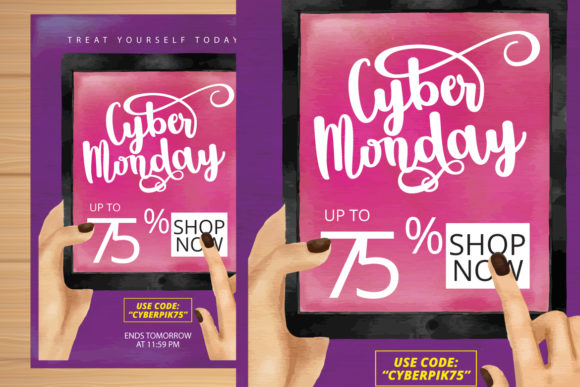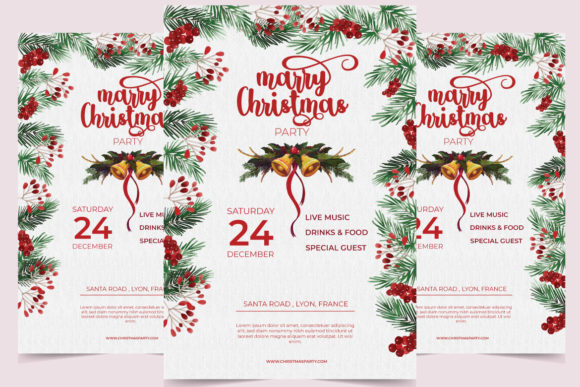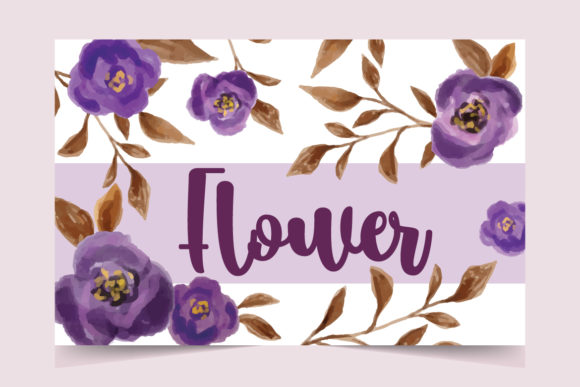
Introduction to Minoila Font
Have you ever stumbled upon a font that makes you feel like you’ve discovered a hidden treasure? A font that speaks directly to your creative soul and inspires you to create something truly magical? For designers and artists, this is the moment we live for – the moment when we find that perfect font that elevates our project to the next level.
For those who have been searching for that perfect script font, we’re excited to introduce you to the stunning Minoila Font. This elegant and beautiful script font is a design resource that will make your creative project shine. Whether you’re working on a wedding invitation, a social media post, or a greeting card, Minoila Font is the perfect addition to bring a touch of sophistication and charm to your design.
Key Features of Minoila Font
- Unique, hand-drawn design style ideal for creative projects
Honest Review: Minoila Font
As a designer, I’m always on the lookout for high-quality design resources to elevate my creative projects. The Minoila Font has been a recent addition to my collection, and I’m excited to share my honest review with you.
- ✨ The Minoila Font offers a beautiful, elegant design that’s perfect for a wide range of creative projects, from invitations to brochures.
- ⚠️ The font is limited to a single weight, which may not be ideal for designs that require multiple font weights.
- ⚠️ The font’s design may not be suitable for bold, attention-grabbing headlines.
Overall, I’m impressed with the Minoila Font’s quality and versatility. While it may have some limitations, it’s a great addition to any designer’s library. If you’re looking for a high-quality, elegant font for your next creative project, the Minoila Font is definitely worth checking out.
When using Minoila Font, keep in mind that it’s a high-quality design resource, so use it sparingly to avoid overwhelming your design. Common use cases include headings, titles, and short paragraphs of text. You can also use Minoila Font as a design element in its own right, by layering it over other design elements or using it as a background texture.
Alternatives to Minoila Font